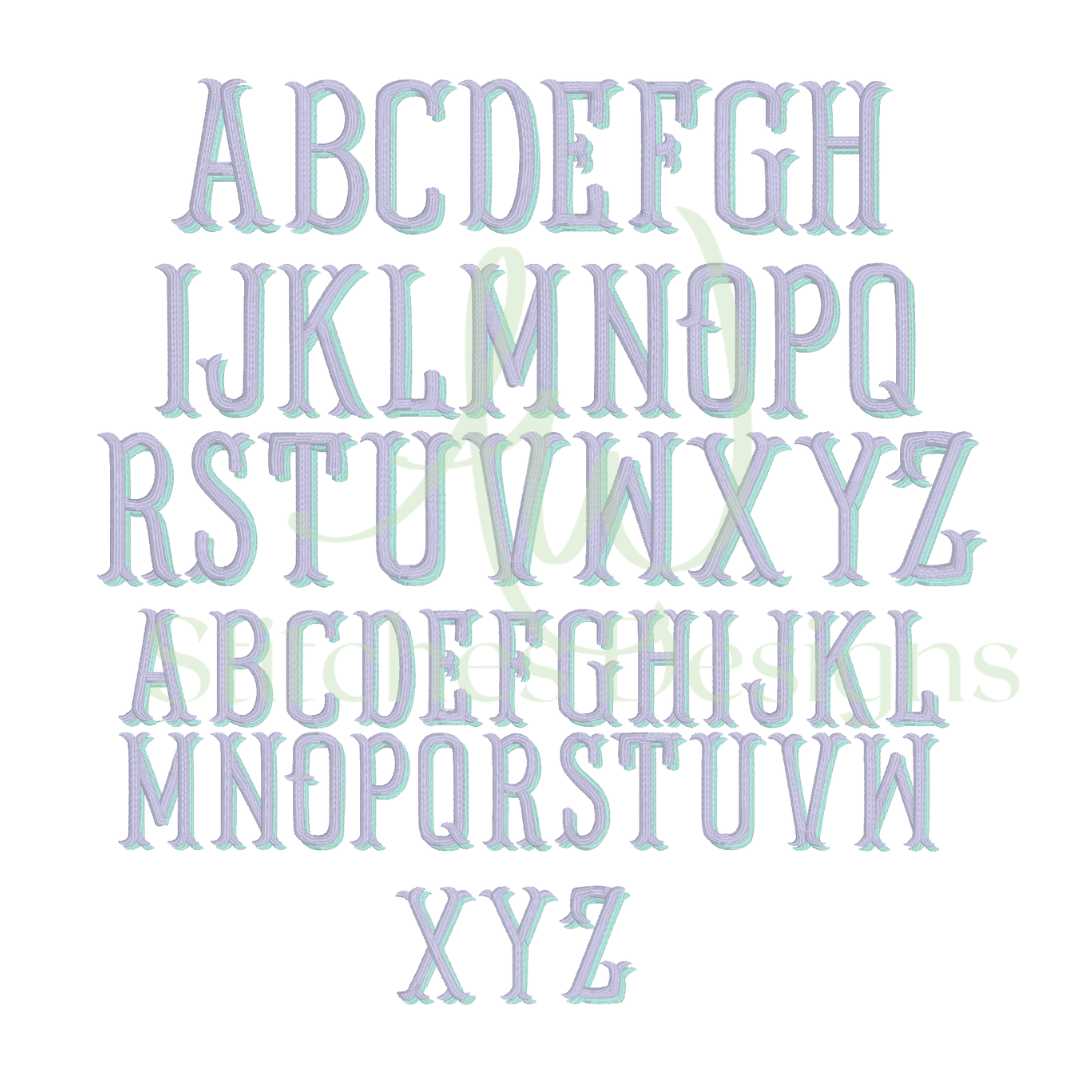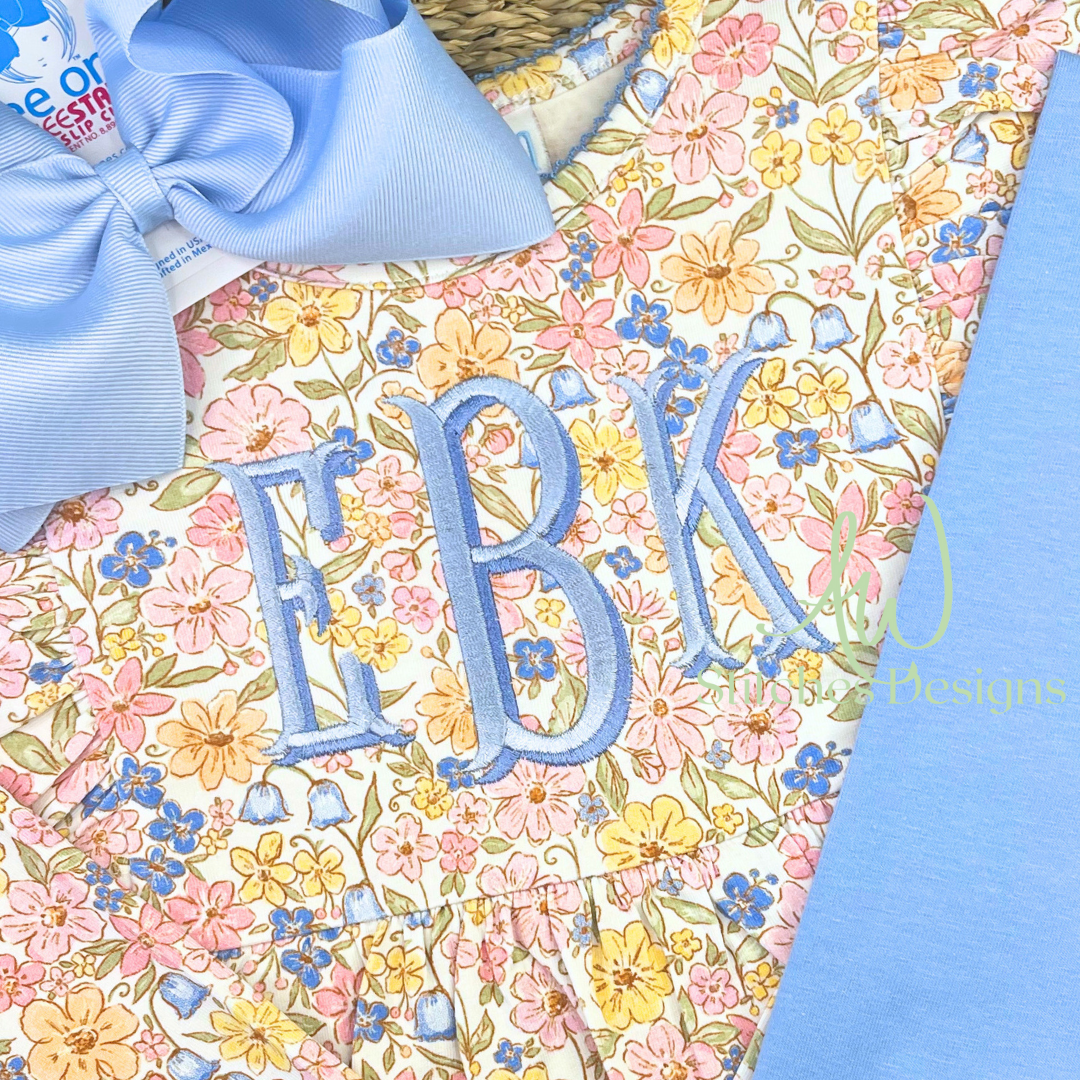
Shadow Fishtail Monogram Satin Stitch Font for Machine Embroidery
A timeless monogram font with added depth and elegance, the Shadow Fishtail Monogram Satin Stitch Font is perfect for personalizing children’s clothing, bags, gifts, linens, and boutique embroidery projects. This machine embroidery font includes sizes 1.5 inch to 3.5 inch and comes with BX format for easy keyboard lettering in embroidery software.
-26 middle uppercase and 26 side uppercase monogram letters